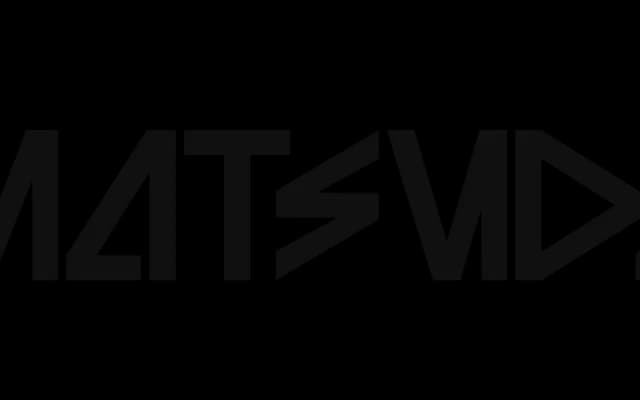
Lÿno
Radim Pesko · Karl Nawrot, Radim Pesko · 2009
Four stylistically distinct cuts designed by Karl Nawrot and Radim Pesko over three years, each named after a cultural figure and built to resist any single, definitive form.
Designed between 2009 and 2012, Lÿno comprises four styles named Ulys(ses 31), Stan(ley Kubrick), Jean (Arp) and Walt (Disney), each negotiating the freedoms of digital type production through deliberately open and unstable letterforms. The project is explicitly anti-normative: the characters refuse resolution into a fixed typographic identity, making each style a distinct proposition rather than a weight variation. Used on Artforum headlines, it sits comfortably in avant-garde editorial and cultural publishing contexts.
Lÿno resists conventional classification by design; its four named styles propose playful, unstable typologies of form that reject normative letterform conventions, placing it firmly in experimental display territory.